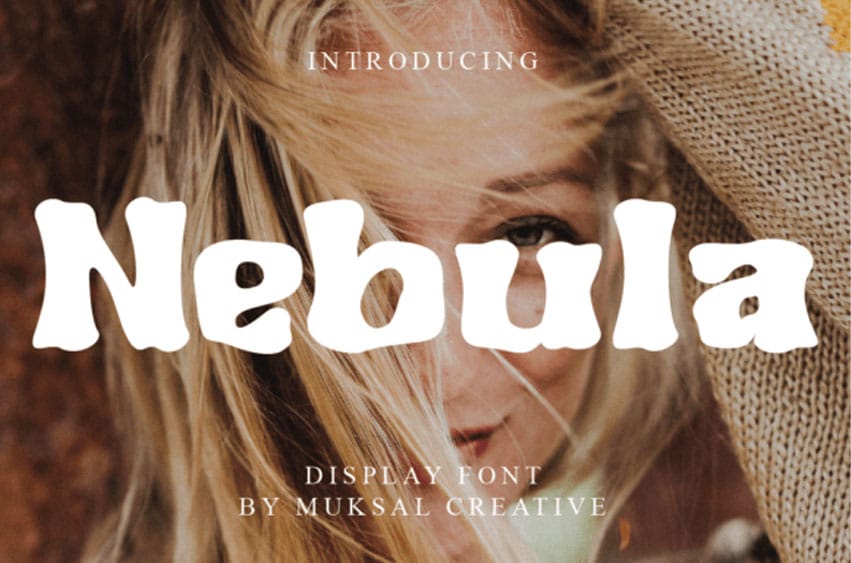
Nebula Font is a modern display font that captivates with its futuristic design and striking aesthetics.
Whether you’re using it for crafts, digital design, presentations, or creating greeting cards, this font has the potential to become your go-to favorite, no matter the occasion.